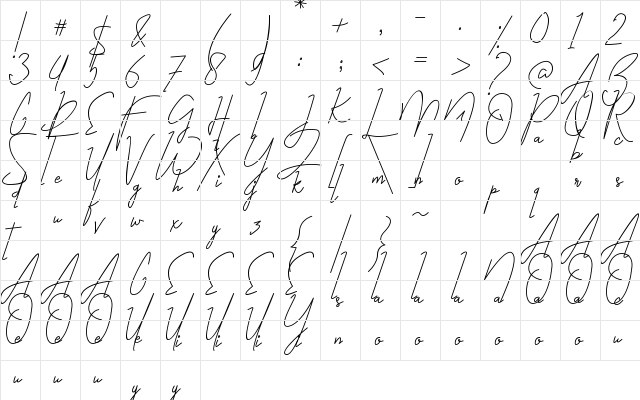
Bestlife Regular Font Preview
Bestlife Regular
Bestlife Regular Font Details
| Designer | Ikrar Bey Khubaib |
Design Context for Bestlife Typeface
Bestlife is a composed and adaptable typeface that performs quietly and consistently across a wide range of design contexts.